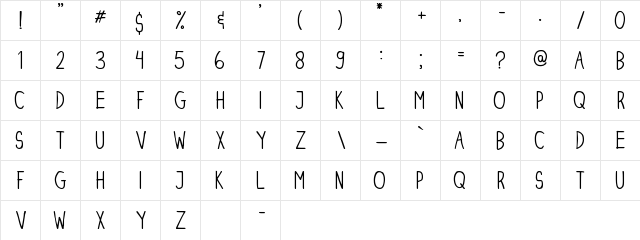
DINSKI CASUAL CONDENSED Regular
Design Context for DINSKI CASUAL CONDENSED Typeface
DINSKI CASUAL CONDENSED takes a measured approach to typography — its balanced proportions and neutral character make it a reliable workhorse for both digital and print work. The condensed width makes it efficient for tight spaces without sacrificing legibility.